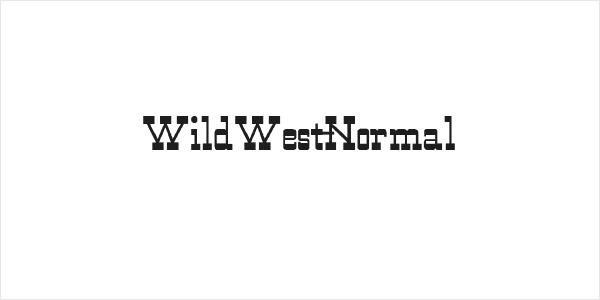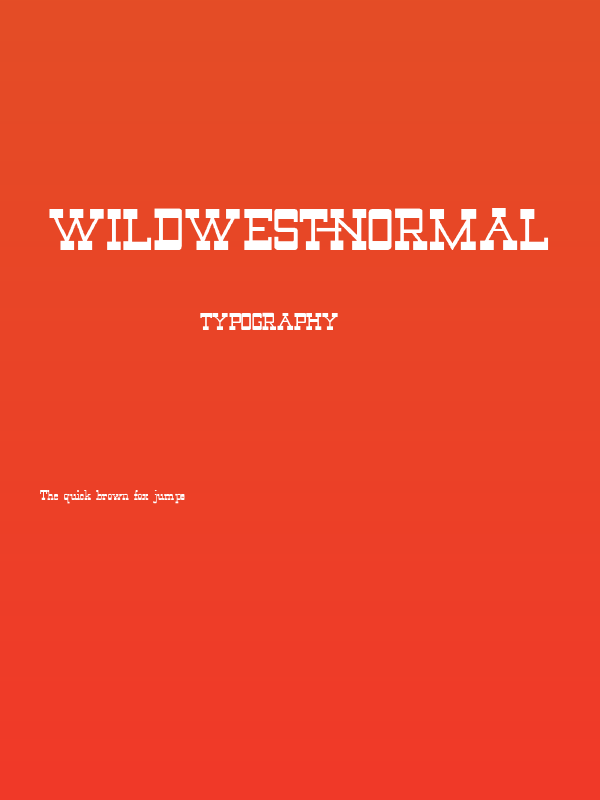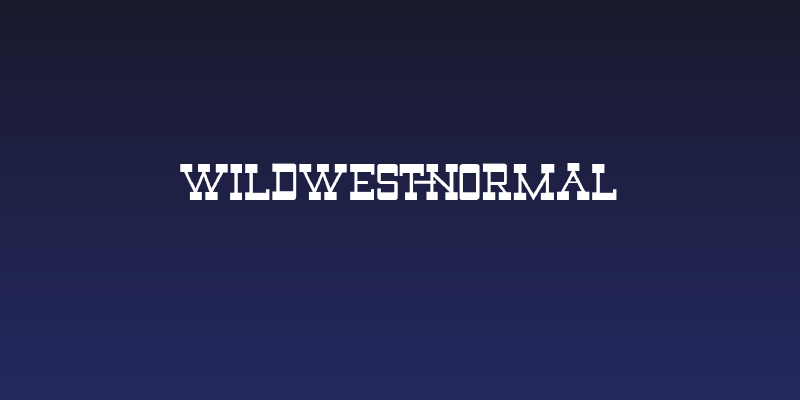
WildWest-Normal Font
WildWest-Normal Description
This font embodies a bold and rugged style reminiscent of the Old West. Its slab serif design features strong, block-like serifs and a sturdy structure, giving it a commanding presence. The uppercase letters are particularly striking, with a uniform height and width that convey strength and stability. The lowercase letters maintain the same robust aesthetic, ensuring consistency across text. Numbers and special characters are designed with the same attention to detail, making them easily legible and visually appealing. This font is perfect for projects that require a touch of vintage charm and boldness.